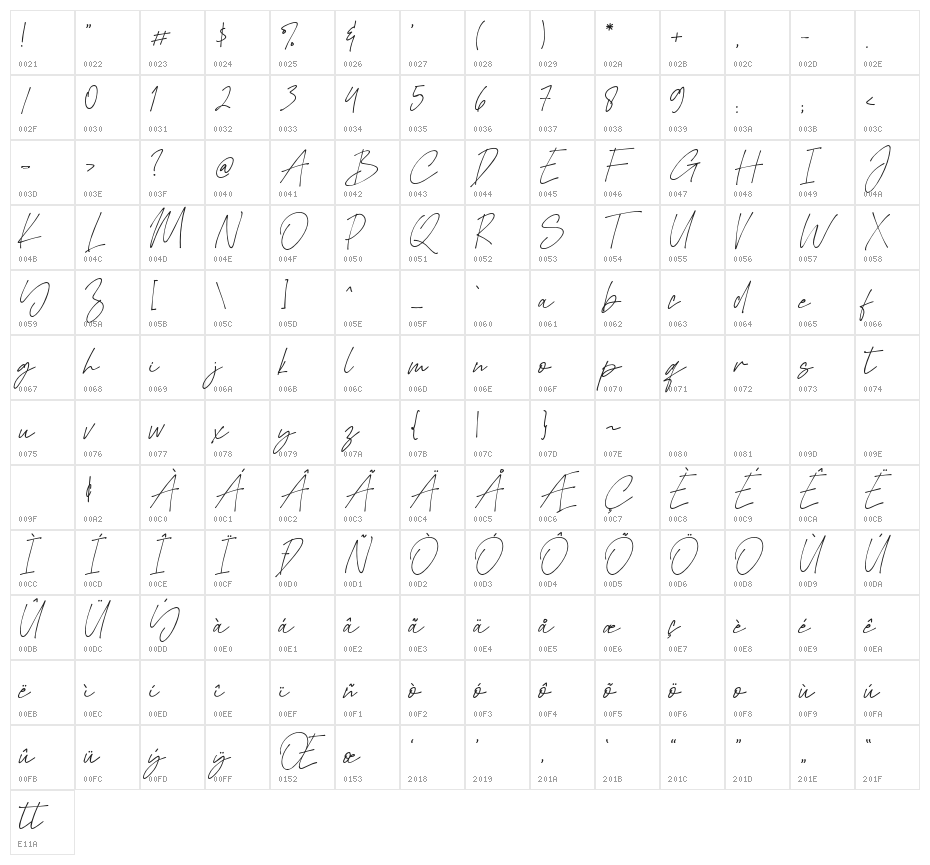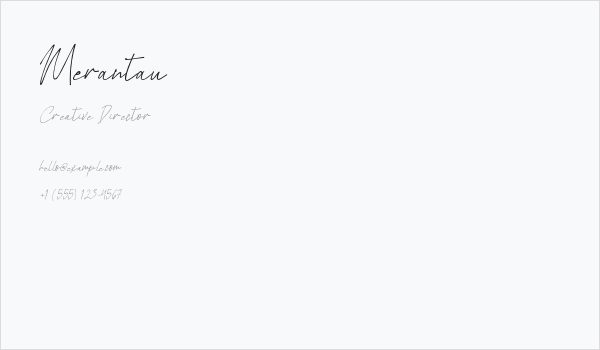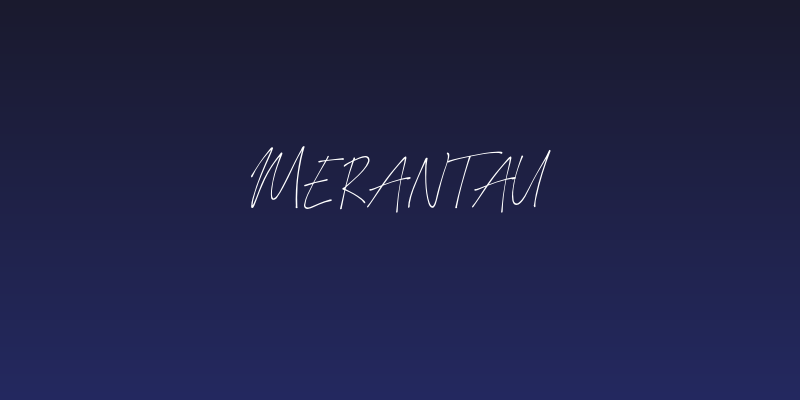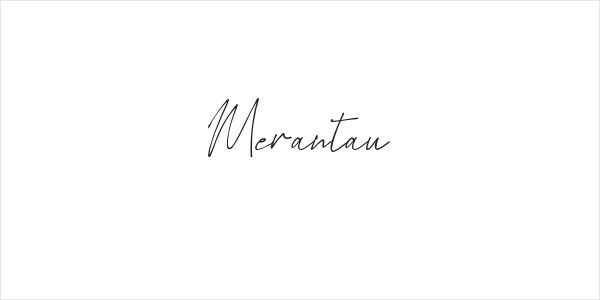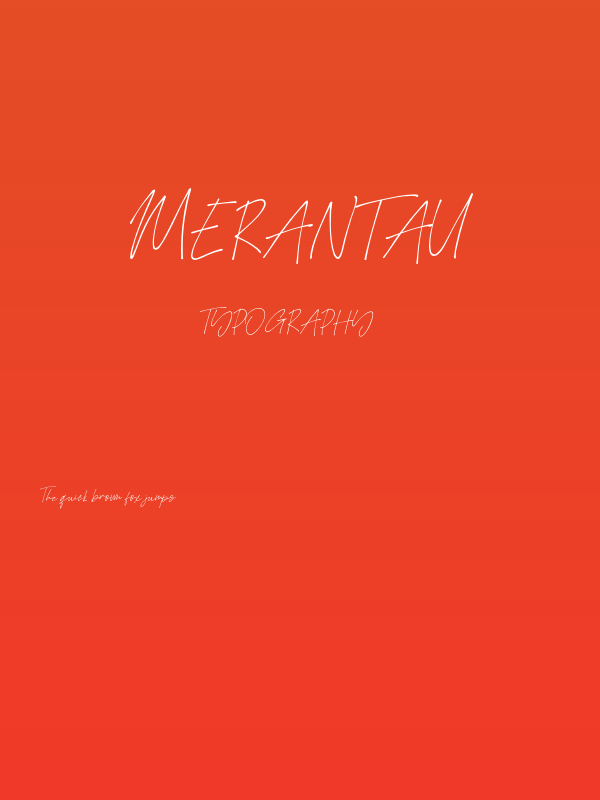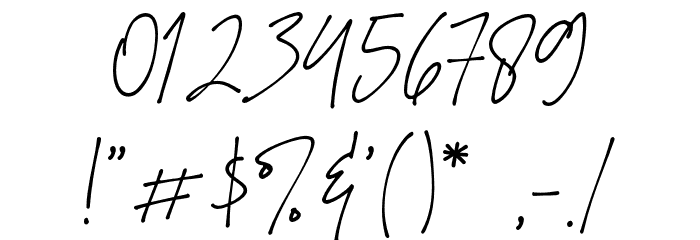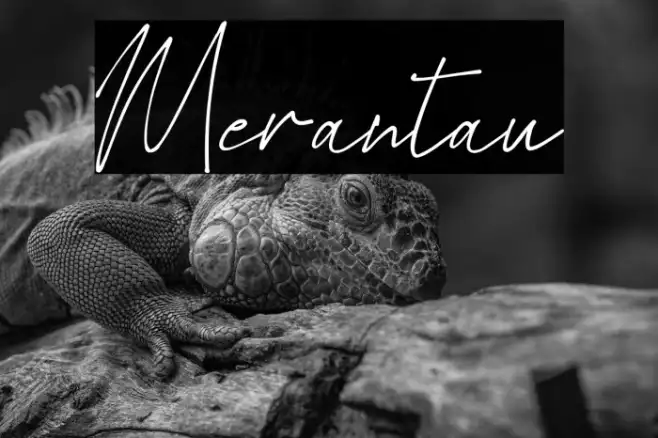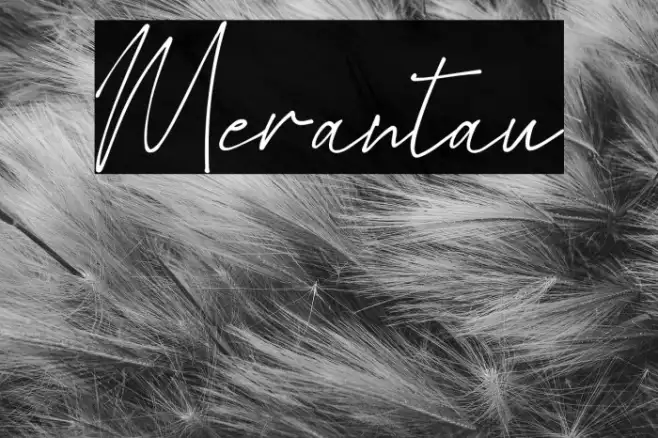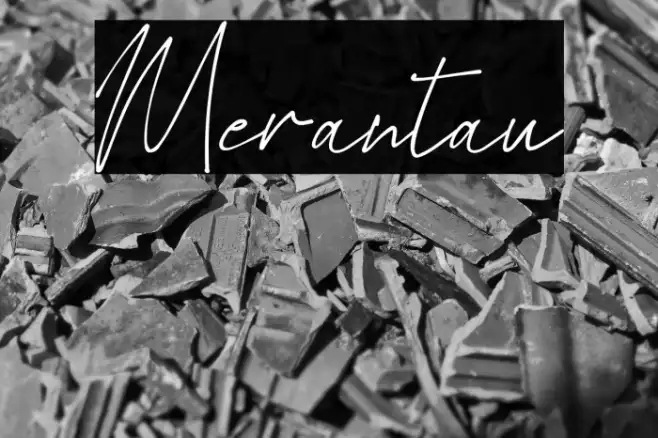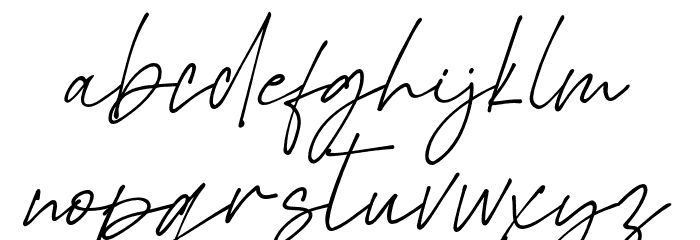
Merantau Font
Merantau Description
This font exudes a casual, handwritten style with a fluid and dynamic appearance. The letters are elegantly connected, mimicking the natural flow of cursive handwriting. The uppercase characters maintain a consistent height, while the lowercase letters vary in size, adding to the organic feel. The numerals and special characters follow the same handwritten aesthetic, ensuring a cohesive look throughout. The strokes are thin, with a slight variation in thickness that adds a touch of sophistication without compromising readability.
| Overall Style | Casual, Elegant |
| Proposed Projects | Ideal for personal branding, wedding invitations, greeting cards, and creative projects that require a personal touch. |